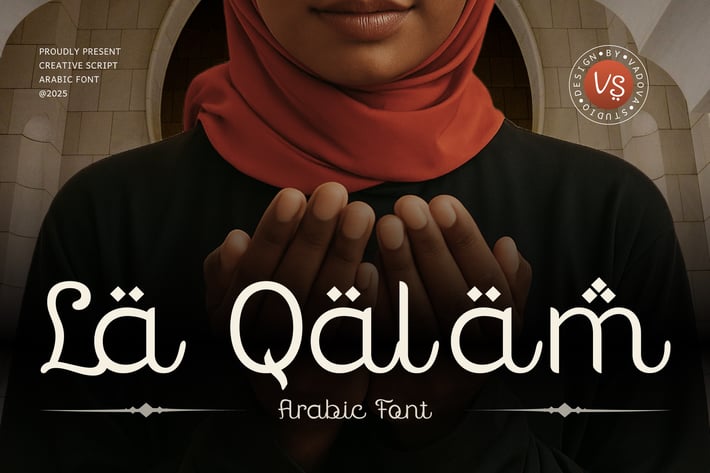
La Qalam Creative Script Font
Lä Qäläm is a beautifully crafted Arabic-inspired script font that combines elegance with spiritual depth. Featuring a soft, flowing style and full character set, it’s ideal for Islamic designs, religious event posters, spiritual branding, and peaceful themed projects. With its refined curves and contemporary feel, this typeface brings a harmonious balance of tradition and modernity. Perfect for headlines, invitations, quotes, and branding elements seeking a serene and culturally resonant touch.
Main Features
Uppercase & Lowercase characters
* Numeral & Punctuations